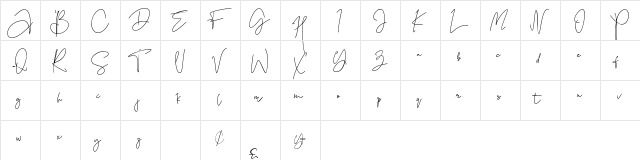
Black Pink Summer Regular
| Designer | Letterara 2019 |
Design Context for Black Pink Summer Typeface
Black Pink Summer is a composed and adaptable typeface that performs quietly and consistently across a wide range of design contexts.